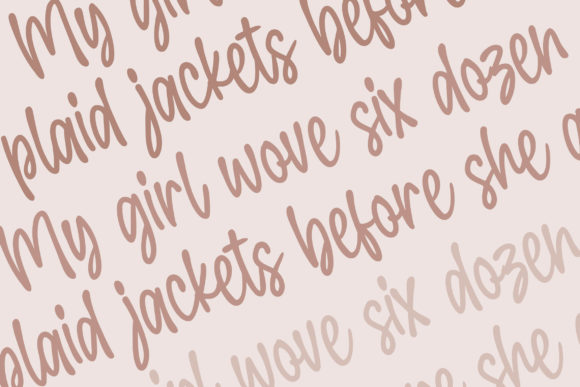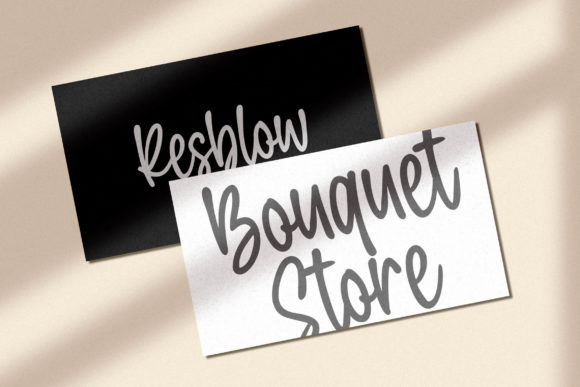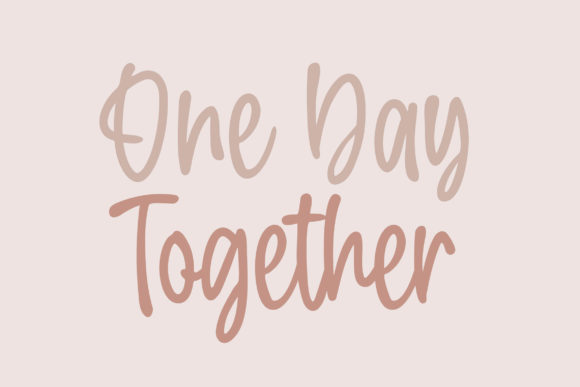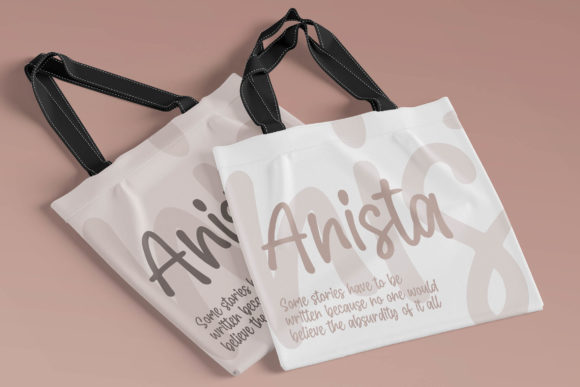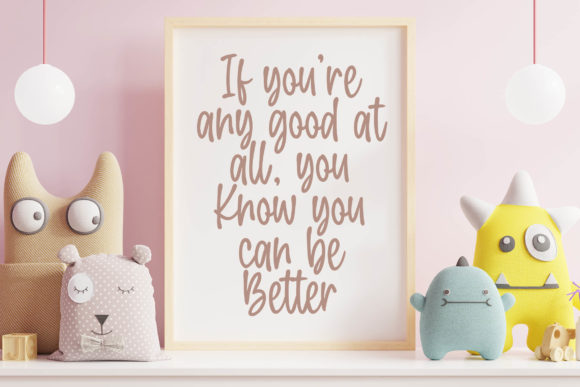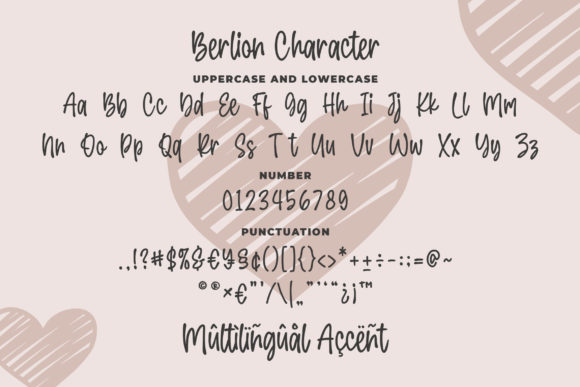
The Berlion Font: A Beautiful Handwritten Touch for Your Designs
I’ll never forget the time I was working on a project for a client’s wedding invitation. I had the perfect design concept, but I was struggling to find a font that captured the playful, yet elegant vibe I was going for. That’s when I stumbled upon the Berlion font. It was like a breath of fresh air – a beautiful, handwritten font that embodied the perfect balance of playfulness and authenticity. In this article, I’ll share my experience with the Berlion font, its features, and how to make the most of it in your designs.
A Personal Review of Berlion Font
- ✨ Beautifully crafted handwritten letters with a delicate touch
- 🎨 Perfect for projects that need a personal, human touch
While the Berlion font is amazing, there are a few things to keep in mind:
- 🤔 Some letters may require manual kerning for optimal spacing
- ⚠️ Limited availability of stylistic alternates, but still offers a range of OpenType features
The Story Behind Berlion Font
The Berlion font was designed with the intention of creating a beautiful, handwritten font that captures the essence of playfulness and authenticity. While the designer’s story may be fictional, it’s clear that the font was crafted with love and attention to detail.
| Font Name | Berlion Font |
| Author | Blankids Studio |